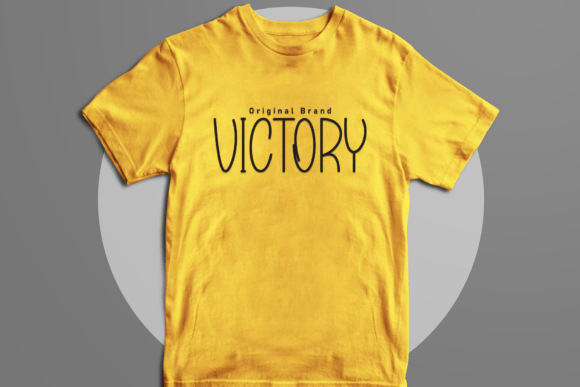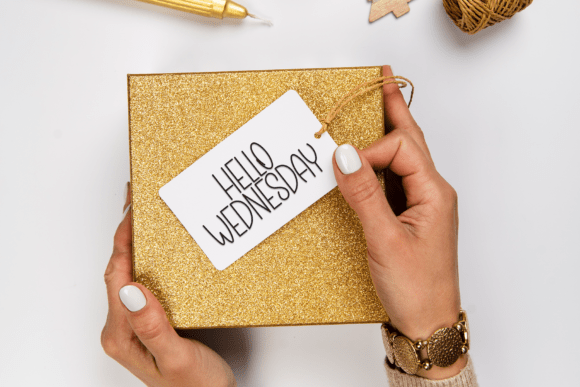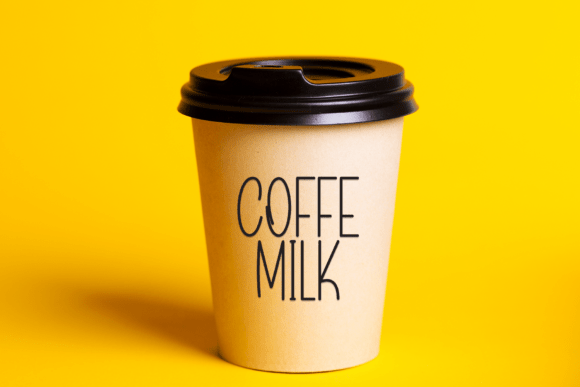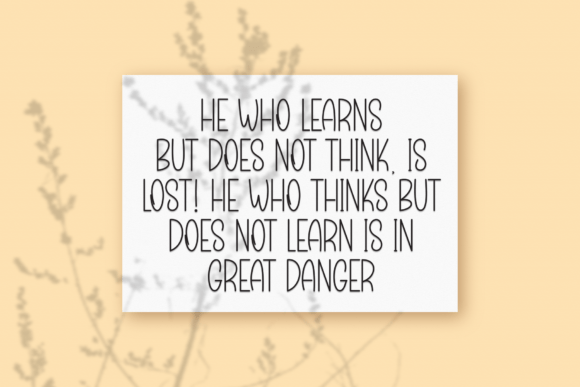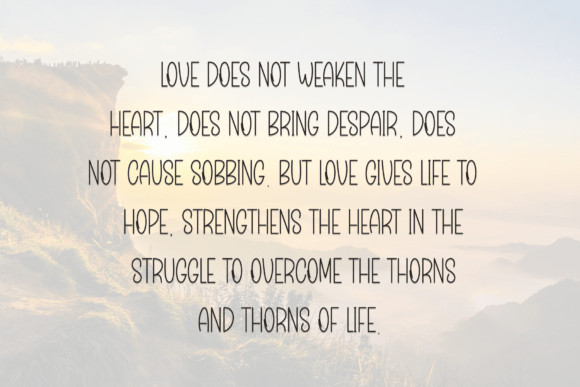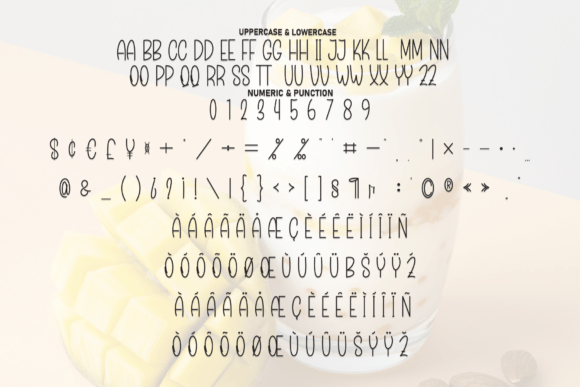
Introduction to Milky Squash Font
Have you ever been working on a creative project, pouring your heart and soul into every detail, only to realize that the perfect font is missing? This is a scenario many designers can relate to. The right font can make or break the overall aesthetic of your design, and that’s exactly why we’re excited to introduce you to the Milky Squash Font – a high-quality, free download that’s about to become your new go-to design resource.
With its clean lines, balanced letterforms, and subtle rounded edges, the Milky Squash Font captures the essence of modern handwritten typography with a polished finish. Its crisp structure and versatile style make it perfect for branding, headlines, packaging, and digital content, adding a warm and inviting touch to any design. Whether you’re working on a project with a transparent background or need a font that delivers clarity and charm in equal measure, the Milky Squash Font is an excellent choice.
Key Features of Milky Squash Font
- High-quality, hand-drawn design ideal for creative projects and artistic expressions.
- Large character set, including uppercase and lowercase letters, numbers, and special characters, making it a versatile design resource.
- Designed with a unique, playful style that is perfect for adding a touch of whimsy to designs and creative projects.
Honest Review: Milky Squash Font
I recently stumbled upon the Milky Squash Font and I have to say, it’s a fantastic addition to any designer’s toolkit. This free download is a high-quality, versatile font that can elevate any creative project.
What works well about the Milky Squash Font is its unique and playful style. The font features a transparent background, which makes it perfect for creating eye-catching designs and graphics. The characters are well-designed and well-spaced, making it easy to read and use in a variety of contexts.
Here are some of the key features that I appreciate about the Milky Squash Font:
- Unique and playful style
- High-quality characters and spacing
- Perfect for creative projects and design resources
One limitation of the Milky Squash Font is that it may not be suitable for formal or professional projects. The playful style may come across as too casual for some audiences.
Overall, I’m really impressed with the Milky Squash Font and I would definitely recommend it to designers looking for a fun and creative design resource. ⭐️⭐️⭐️⭐️
The Milky Squash Font is ideal for creative projects such as invitations, brochures, and social media graphics. Its high-quality design and transparent background make it a versatile resource for designers and non-designers alike.